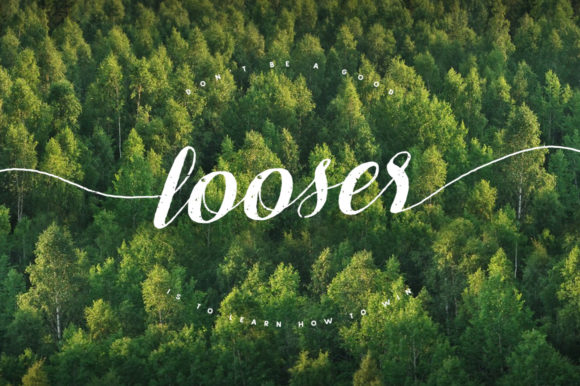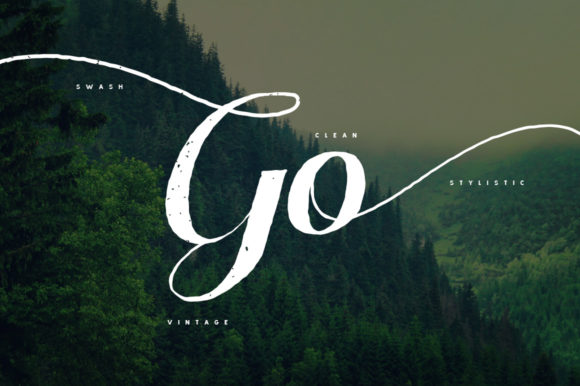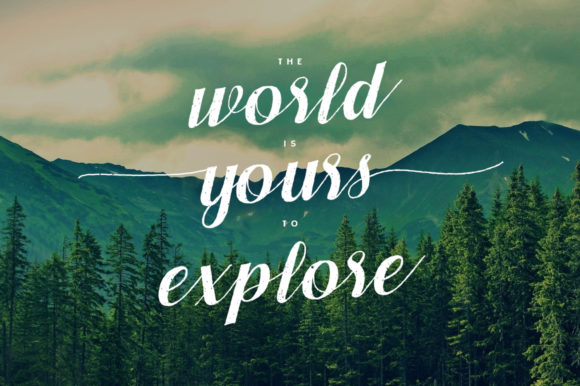
Pratiwi Font
About Pratiwi Font
Introducing Pratiwi, a fantastic duo font that skillfully combines a sophisticated sans serif with a charming script font. This unique pairing offers incredible versatility, making it a perfect choice for a wide range of crafty ideas, from letterheads and titles to stationery and beyond.
The sans serif font in Pratiwi exudes modernity and professionalism, with clean lines and a timeless appeal. Its simplicity and clarity make it an excellent choice for headings, logos, and any design element that requires a clean and elegant touch. Whether you’re creating business cards, brochures, or digital presentations, the sans serif font in Pratiwi will bring a touch of sophistication to your projects.
On the other hand, the script font in Pratiwi adds a sense of charm and handcrafted elegance to your designs. Its flowing and cursive nature gives it a personal touch, making it ideal for wedding invitations, greeting cards, and any design where you want to evoke a warm and welcoming feeling. The script font effortlessly infuses your projects with a sense of beauty and authenticity.
Together, the sans serif and script fonts in Pratiwi form a harmonious duo that complements each other perfectly. This combination allows you to create captivating and well-balanced designs, where the sleekness of the sans serif font harmonizes with the expressive and artistic qualities of the script font.
Whether you’re designing for print or digital media, Pratiwi’s duo font will add a touch of professionalism and creativity to your work. Its versatility extends to a wide range of applications, from branding and marketing materials to social media graphics and beyond.
Pratiwi’s duo font is designed to cater to a diverse audience, making it a valuable asset for graphic designers, crafters, and anyone seeking to elevate their creative projects. It’s a font duo that’s sure to leave a lasting impression on your audience and set your designs apart.
In conclusion, Pratiwi is a great duo font that masterfully combines a sophisticated sans serif with a charming script font. Its versatility makes it a wonderful choice for various crafty ideas, adding a touch of elegance to letterheads, titles, and stationery. Whether you’re creating professional materials or personal projects, Pratiwi’s duo font will enhance your designs and captivate your audience with its seamless combination of modernity and handcrafted beauty.